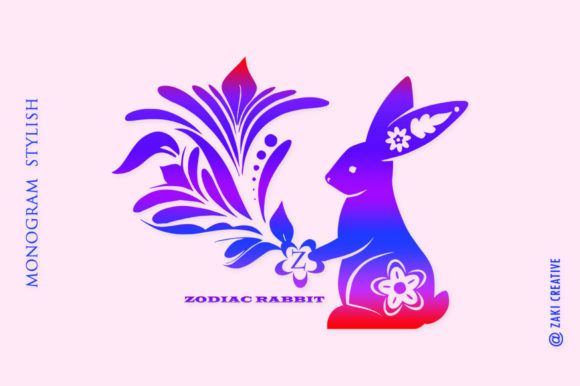
Introducing Zodiac Rabbit Monogram Font, an exquisite and decorative font family that brings a touch of elegance and charm to your creative projects. With its graceful curves and delicate details, Zodiac Rabbit Monogram is the perfect choice for adding a personal touch to your designs.
Unleash your inner artist and explore the endless possibilities that await you with Zodiac Rabbit Monogram. Its versatile nature makes it an ideal choice for a wide range of applications, from wedding invitations and love letters to greeting cards and branding projects. This font will transform your designs into captivating works of art that leave a lasting impression.
Imagine the joy of receiving a handwritten letter penned with Zodiac Rabbit Monogram. Its delicate strokes dance across the page, evoking a sense of romance and nostalgia. Your words become imbued with a deeper meaning, as the font adds a layer of elegance and charm to your messages.
With Zodiac Rabbit Monogram, you'll find endless opportunities to express your creativity. Whether you're a seasoned designer or just starting out, this font is your perfect companion. Its user-friendly design makes it easy to incorporate into your projects, allowing you to create stunning visuals with minimal effort.
So, embark on a creative journey with Zodiac Rabbit Monogram and elevate your designs to new heights. Let your imagination soar as you explore the endless possibilities that await you with this captivating font family.